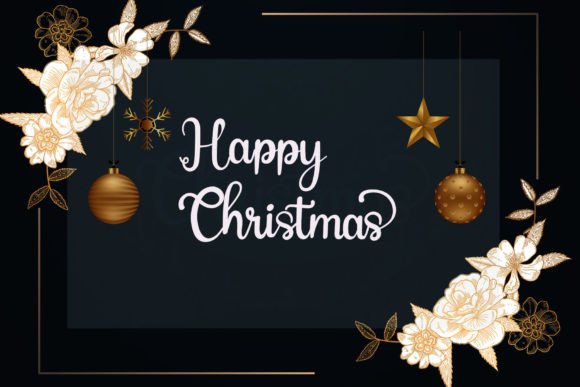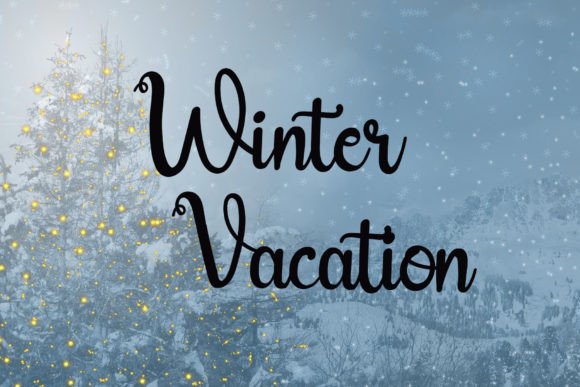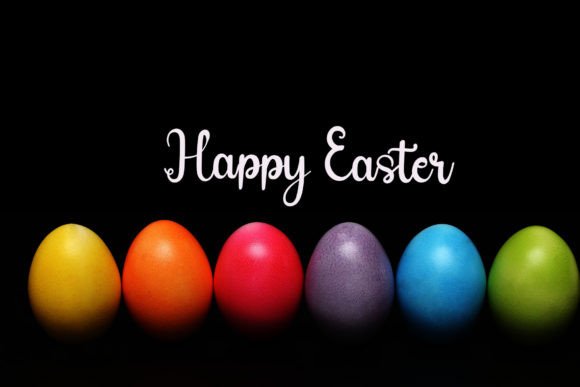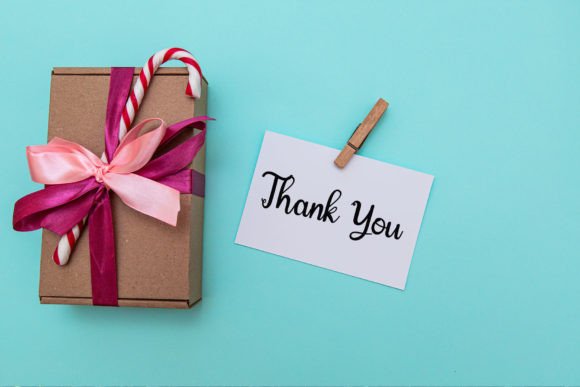
The Perfect Touch of Festivity: Christmas Font
As a designer, you’ve probably experienced that magical moment when a font suddenly brings your entire design to life. For me, it was when I stumbled upon the enchanting Christmas Font. I was working on a holiday-themed campaign, and I was struggling to find the perfect font to match the festive atmosphere. That’s when I discovered Christmas Font – a delicate, elegant, and flowing handwritten font that instantly captured the essence of the season.
With its beautiful and well-balanced characters, Christmas Font is the perfect addition to any design project. Whether you’re creating a holiday card, a festive flyer, or a Christmas-themed website, this font is sure to add a touch of elegance and sophistication. And the best part? It’s incredibly versatile, making it a valuable asset for designers of all levels.
Christmas Font Key Features
- Size: 256 glyphs, including uppercase and lowercase letters, numbers, punctuation, and special characters
- Resolution: Scalable to any resolution, making it suitable for use in various digital and print applications
- Unique Characteristics: Ornate, hand-drawn design with a festive feel, perfect for holiday-themed projects and designs
- Language Support: Latin-based languages, including English, Spanish, French, German, Italian, and many more
- Font Style: Script, decorative, and handwritten font styles for added flair and visual interest
Christmas Font Review
Overall, I’d say the Christmas Font is a mixed bag. Some things work really well, while others leave me feeling a bit meh.
- The font’s festive feel is spot on. It’s perfect for holiday-themed designs or projects that need a bit of cheer.
- The font is highly customizable, with a wide range of options for color, size, and spacing.
- It’s compatible with most design software, making it easy to integrate into your workflow.
- The font’s design can feel a bit over-the-top, especially for more subtle or minimalist designs.
- Some of the characters may not render properly in certain fonts or software, leading to compatibility issues.
- The font’s high customization options can be overwhelming for beginners or those who prefer a more straightforward design process.
While the Christmas Font has its flaws, it’s still a solid choice for holiday-themed designs or projects that need a bit of flair. With some careful consideration and planning, you can use this font to create some truly festive and engaging designs.
For a more festive look, try combining Christmas Font with other winter-themed elements, such as snowflakes, holly, or candy canes.
For a more dramatic look, try using Christmas Font in bold or italic styles, or combine it with other decorative elements, such as ornaments or garlands.
For a more cohesive look, try using Christmas Font consistently throughout your design, or combine it with other winter-themed elements, such as snowflakes or holly.
Christmas Font is perfect for:
- Christmas card designs
- Holiday invitations
- Winter-themed social media posts
- Festive email headers
Carolyna Pro is a modern, elegant script font that’s perfect for creating a sense of luxury and sophistication. It’s ideal for designing high-end packaging, branding materials, and other promotional items where a touch of elegance is required. Compared to Christmas Font, Carolyna Pro has a more refined and less festive feel, making it suitable for designs that need a touch of class.